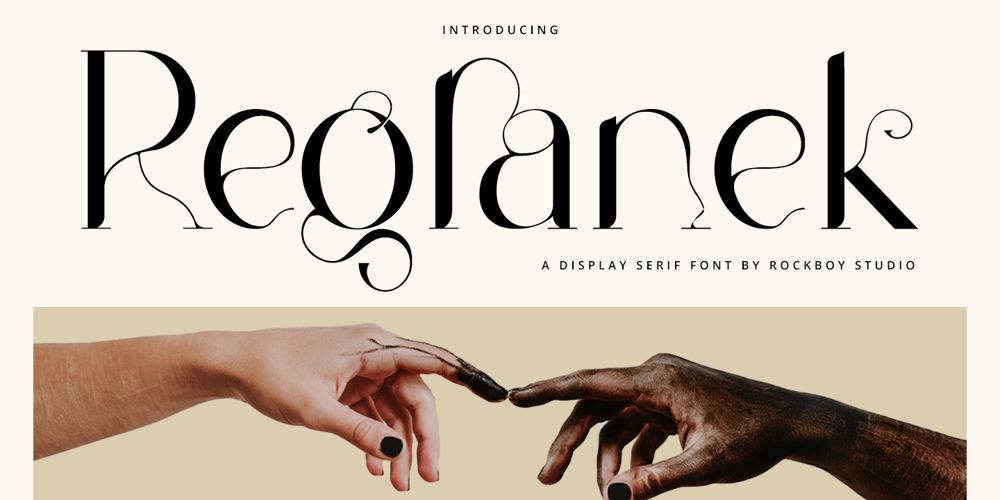
Regranek
Regranek font
Regranek Font Family was designed by Hayinah and published by Rockboys Studio. Regranek contains 1 styles and family package options. Regranek is an elegant, thin-lettered, and distinct serif font. Suitable to a wide variety of designs due to its neat and clean style, this font has the potential to become your favorite go-to font, no matter the occasion!